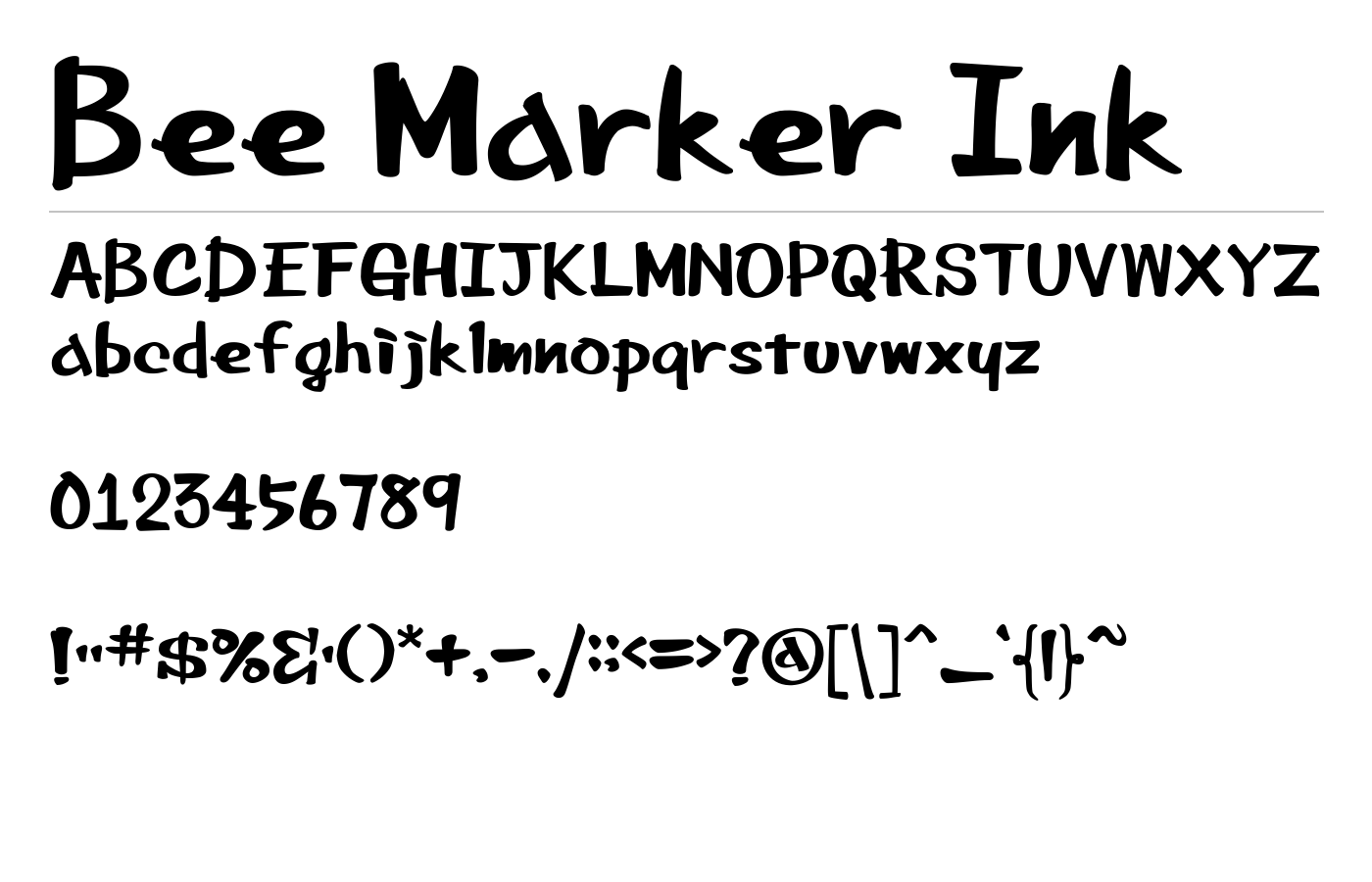
Bee Marker Ink is a playful, casual sans serif font with a hand-drawn marker style that feels friendly and approachable. Its irregular, chunky strokes and quirky letterforms give it a lively, informal character that works well for creative projects, children’s content, and fun branding. This font’s unique, energetic vibe makes it ideal for headlines, logos, and packaging where a bold, personal touch is needed.
Bee Marker Ink Font
About Bee Marker Ink Font
| Font family | Bee Marker Ink Font |
| Designer | Futaba |